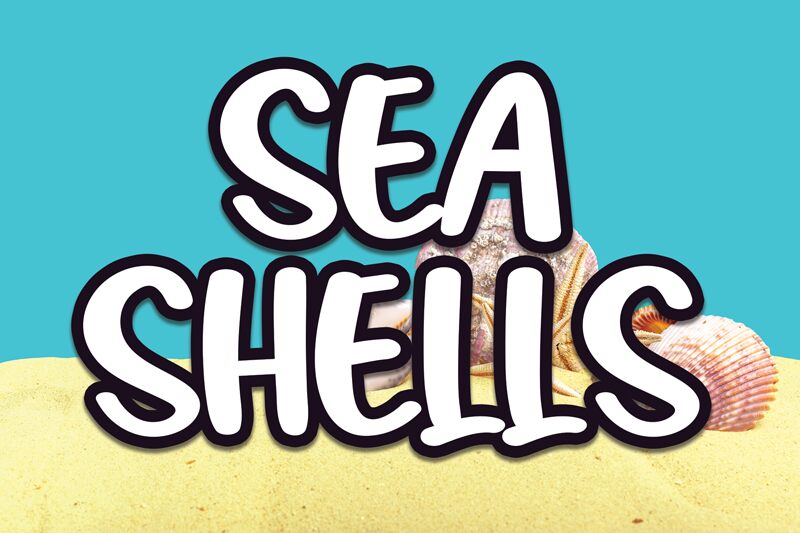
Sea Shells
Sea Shells, designed by Scratchones, is a bold and playful display font with a delightful cartoon style. This font captures the essence of handwritten charm, adding a personal touch to any project. Its bold weight ensures that your message stands out and commands attention.
Perfect for children's books, greeting cards, logos, and website headers, Sea Shells brings an element of fun and whimsy to your designs.
Let your creativity flow with this versatile font that promises to add a touch of joy to any project.